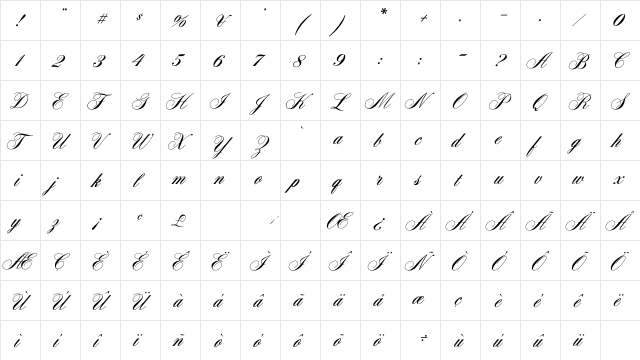
AeroliteScriptCP2 Medium
Design Context for AeroliteScriptCP2 Typeface
AeroliteScriptCP2 brings a calligraphic fluidity to the page — its connecting strokes and expressive curves give it an unmistakably human quality.
Font Pairing: Combine AeroliteScriptCP2 with a simple geometric sans for maximum contrast — the tension between flowing curves and clean structure is a classic typographic pairing.
Pro Tip: Use AeroliteScriptCP2 for short runs of text — names, titles, or taglines. Extended body copy in script faces tires the eye quickly.